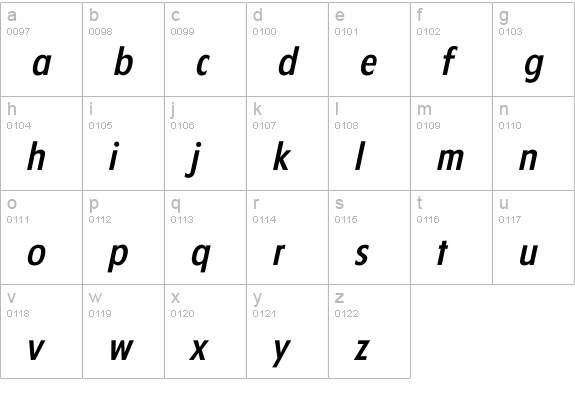
Iflorida Medium is a balanced, medium-weight variant in the Iflorida typeface family \xE2\x80\x94 well suited to sub-headlines, navigation, and balanced editorial work.
Introducing Iflorida Medium, a versatile and elegant font that is sure to enhance any design project. This beautiful typeface combines the perfect balance of sophistication and modernity, making it ideal for a wide range of applications. With its clean lines and subtle curves, Iflorida Medium offers a sense of professionalism and refinement. Whether you're designing a logo, creating a brochure, or working on a website, this font will effortlessly elevate your work to new levels of visual appeal. One of the best features of Iflorida Medium is that it is available for free. That's right, you can download this stunning font at no cost from FontsMarket.com. This means that you can enjoy the benefits of this high-quality typeface without breaking the bank. The versatility of Iflorida Medium is further emphasized by its extensive character set. With a wide range of glyphs and special characters, you have the freedom to create unique and captivating designs. Whether you're looking for a classic and timeless look or a more contemporary and edgy style, this font has got you covered. The legibility of Iflorida Medium is also worth mentioning. Each letter is meticulously designed to ensure clarity and readability, even at smaller sizes. This means that your text will always be easy to read, no matter the context or medium. If you're looking to add a touch of sophistication and elegance to your design projects, look no further than Iflorida Medium. Its seamless blend of classic and modern aesthetics, coupled with its free availability at FontsMarket.com, makes it a must-have font for any designer or creative professional. Download it today and unlock a world of possibilities for your next project.